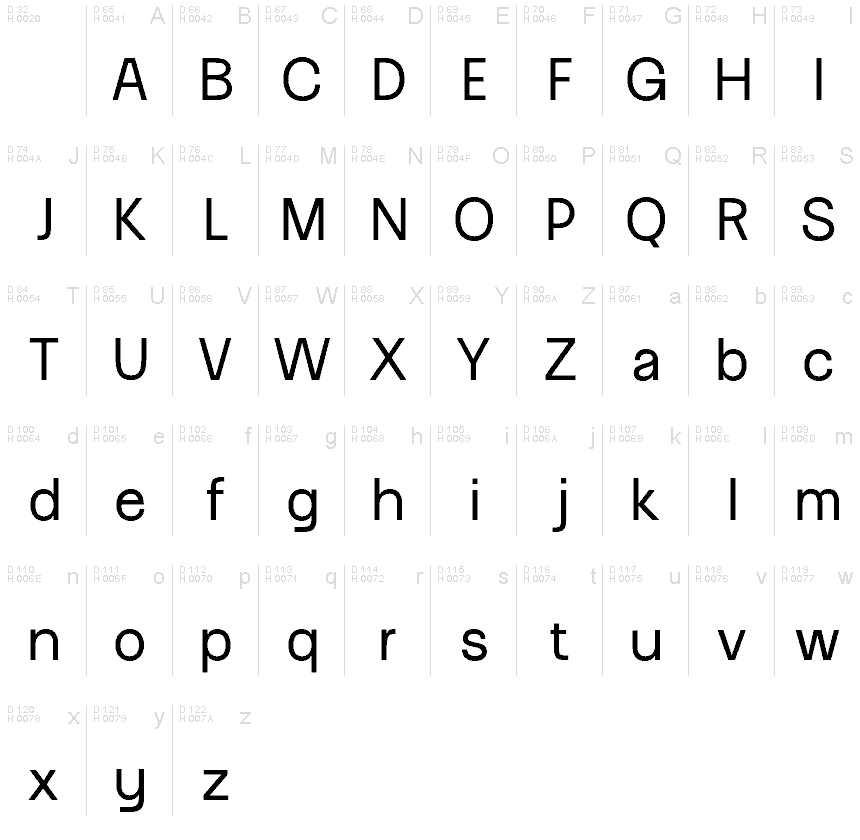
Ravio Demo Regular
Ravio font by Craft Supply Co is a free sans serif font that epitomizes modernity with its clean, geometric design. The minimalistic style and versatile nature make it an excellent choice for projects requiring precision and clarity.
Use Ravio in headlines, posters, branding projects, logotypes, product packages, invitations cards, magazines covers and inner pages designs.